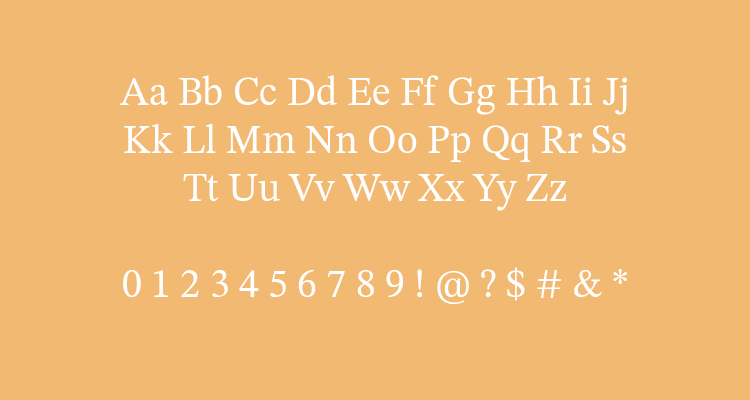
Free Font Friday: STIX Two Math
STIX Two Math, an acronym for Scientific and Technical Information eXchange, is a serif typeface created by a team of designers at Tiro Typeworks. STIX Two Math is part of a family of faces that were designed with a single purpose in mind—to meet the demanding publishing needs for publications in scientific, medical, and technical fields.
The project came about as the result of the cooperation of a variety of companies involved in mathematics, physics, chemistry, and electrical engineering, known collectively as the STI Pub companies. The result is a precise typeface with great readability, perfectly suited for any of the above-mentioned technical applications. To accomplish this, the STIX family boasts a comprehensive set of glyphs that allow it to transition seamlessly from one field of expertise to the next.
STIX Two is available in variable versions in both Roman and Italic, lending the already robustly equipped typeface an ever greater deal of flexibility. In addition to the Latin alphabet, STIX Two is also available in Cyrillic. If you’re working on anything technical and have struggled to find the right face, be sure to give STIX Two Math a shot.